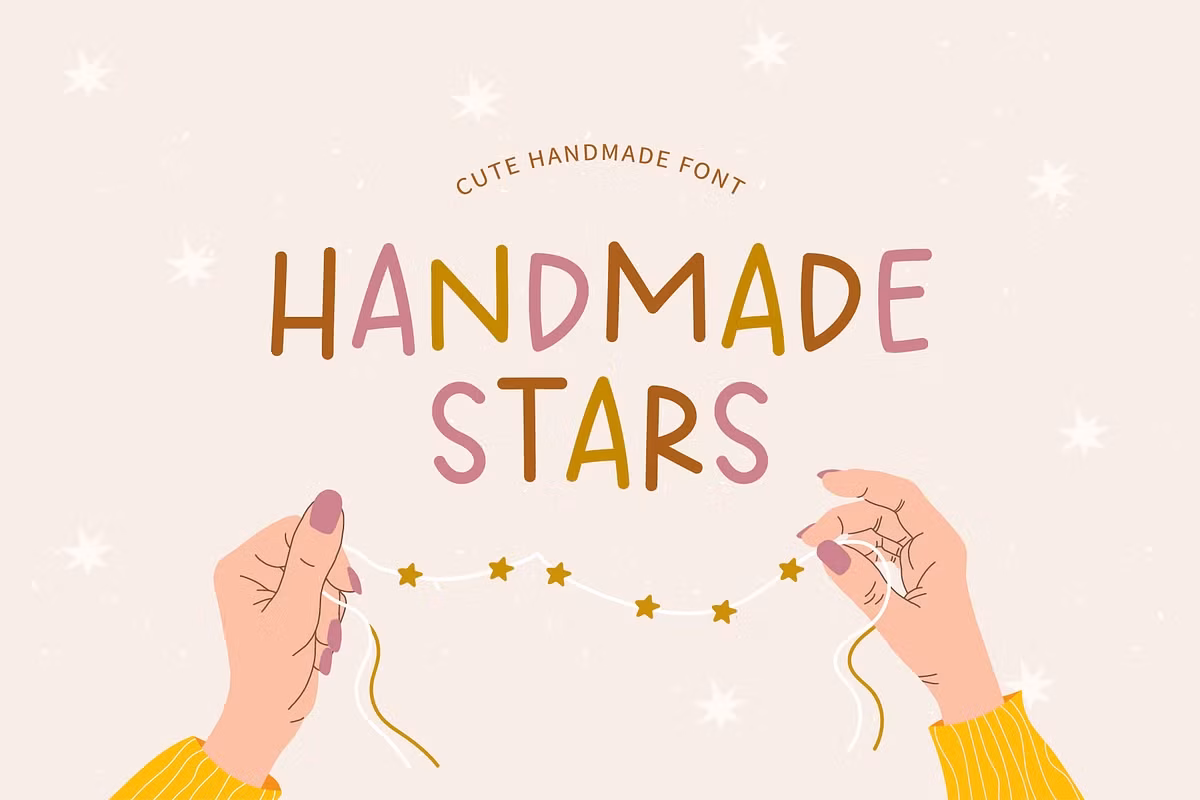
HANDMADE STARS Font Free Download is a fun and creative typeface that blends hand-drawn charm with bold personality. Perfect for posters, DIY projects, kid-friendly branding, and playful social media content, this font adds a lively, handcrafted feel to any design. Its starry, imperfect lines give it a truly unique aesthetic that stands out from the crowd.
HANDMADE STARS Font Free Download is a great choice when you want your message to feel personal and imaginative. Whether you're designing greeting cards, educational materials, or custom merchandise, this font brings in a sense of fun and originality. Download it now and explore how HANDMADE STARS can brighten up your next creative project!